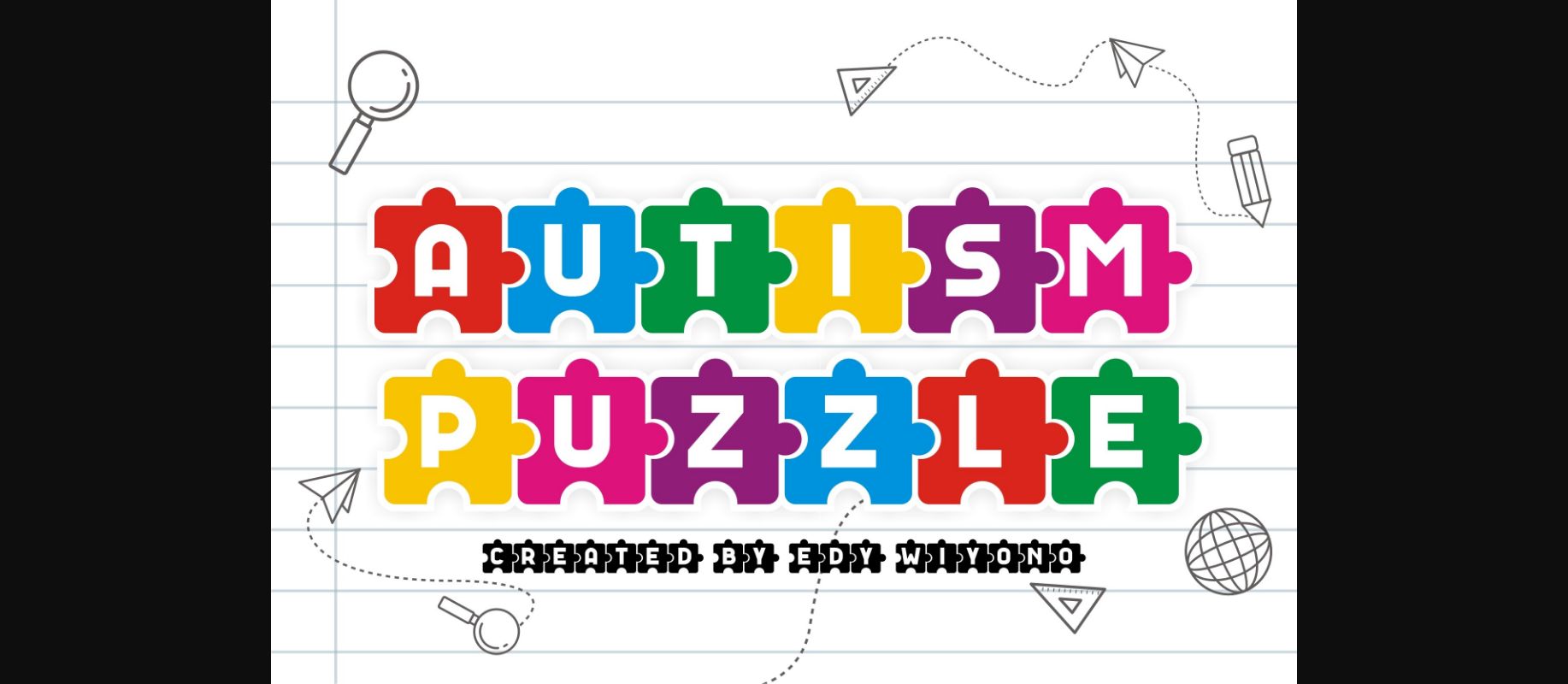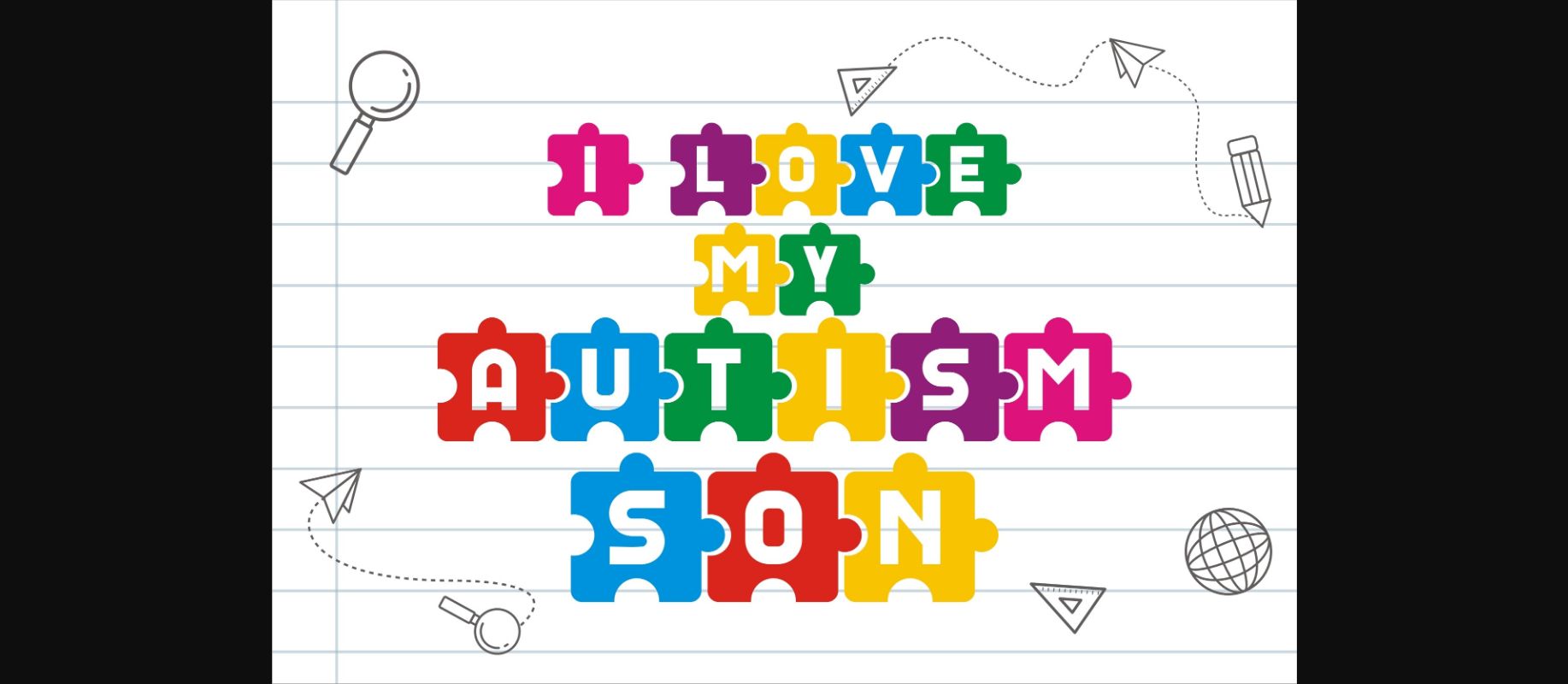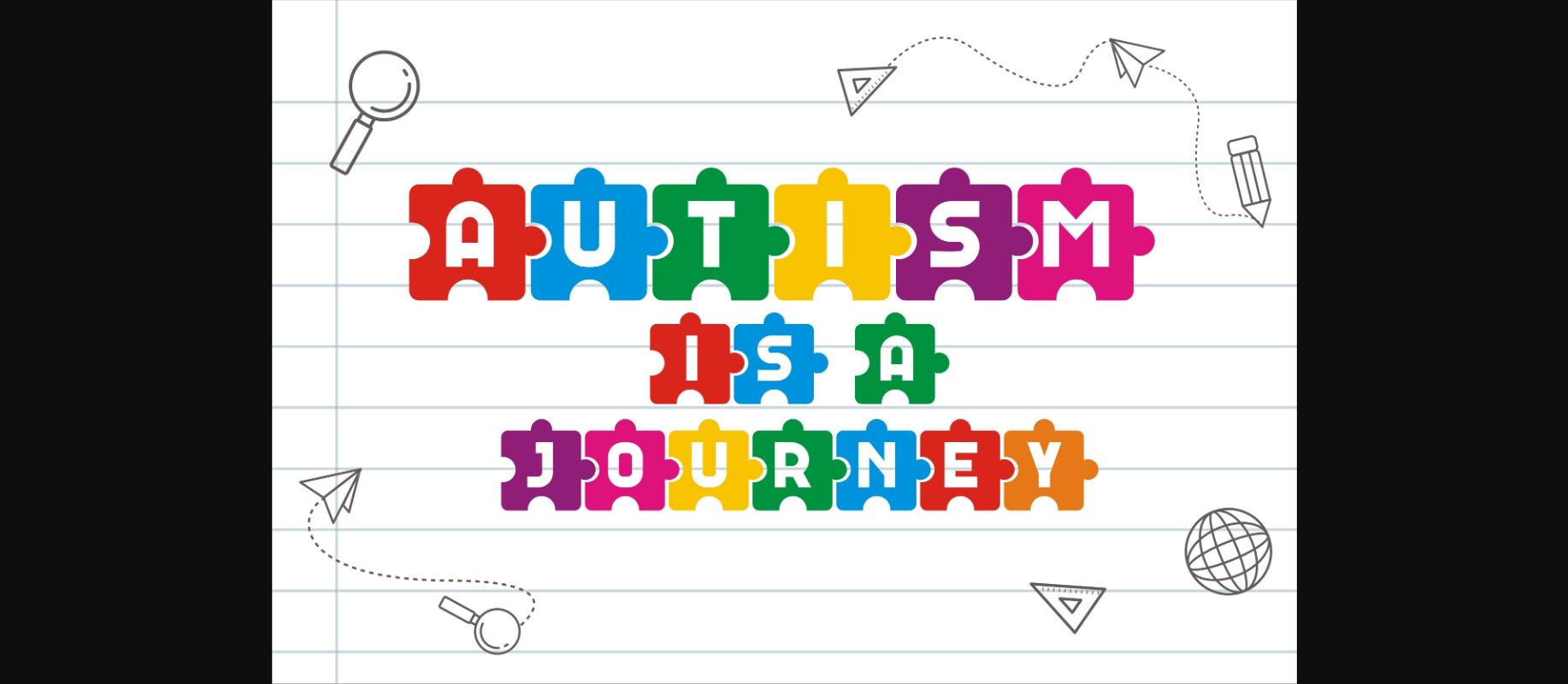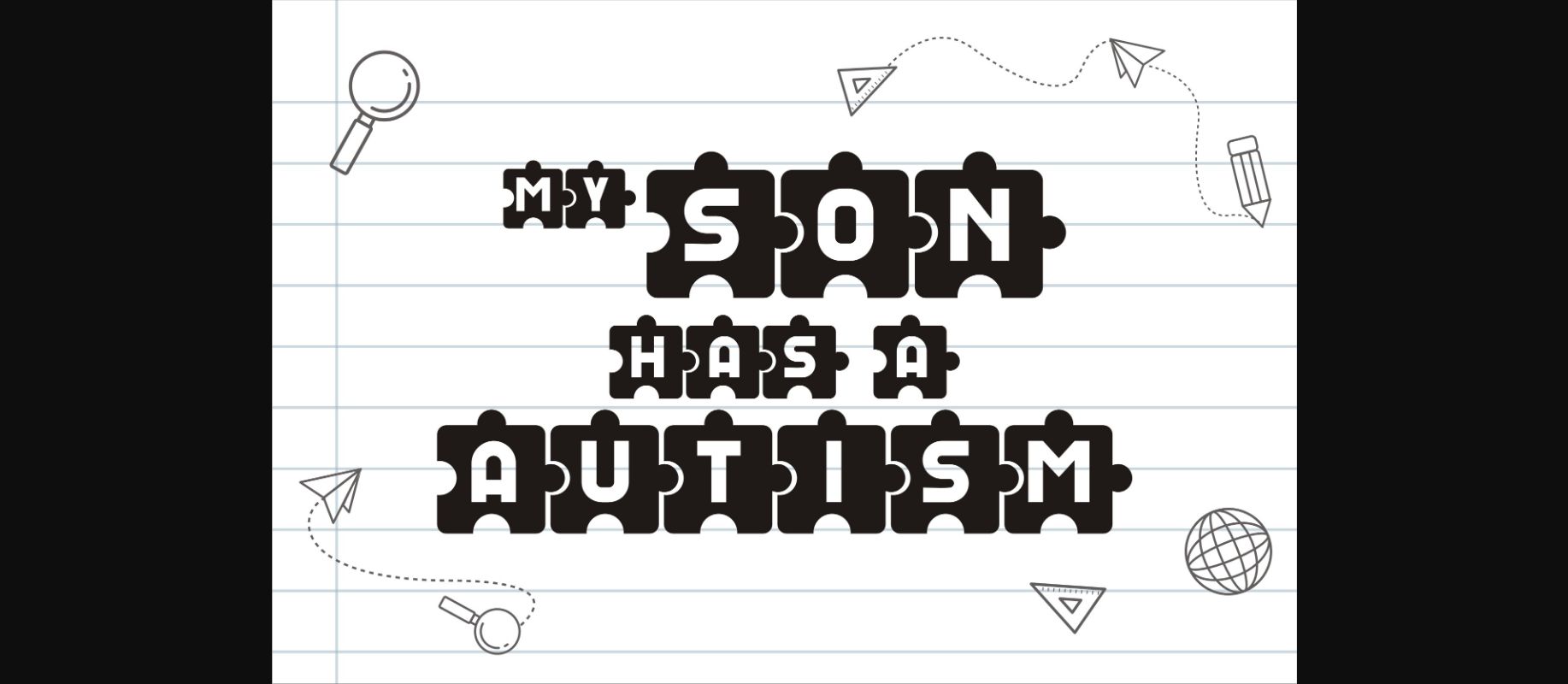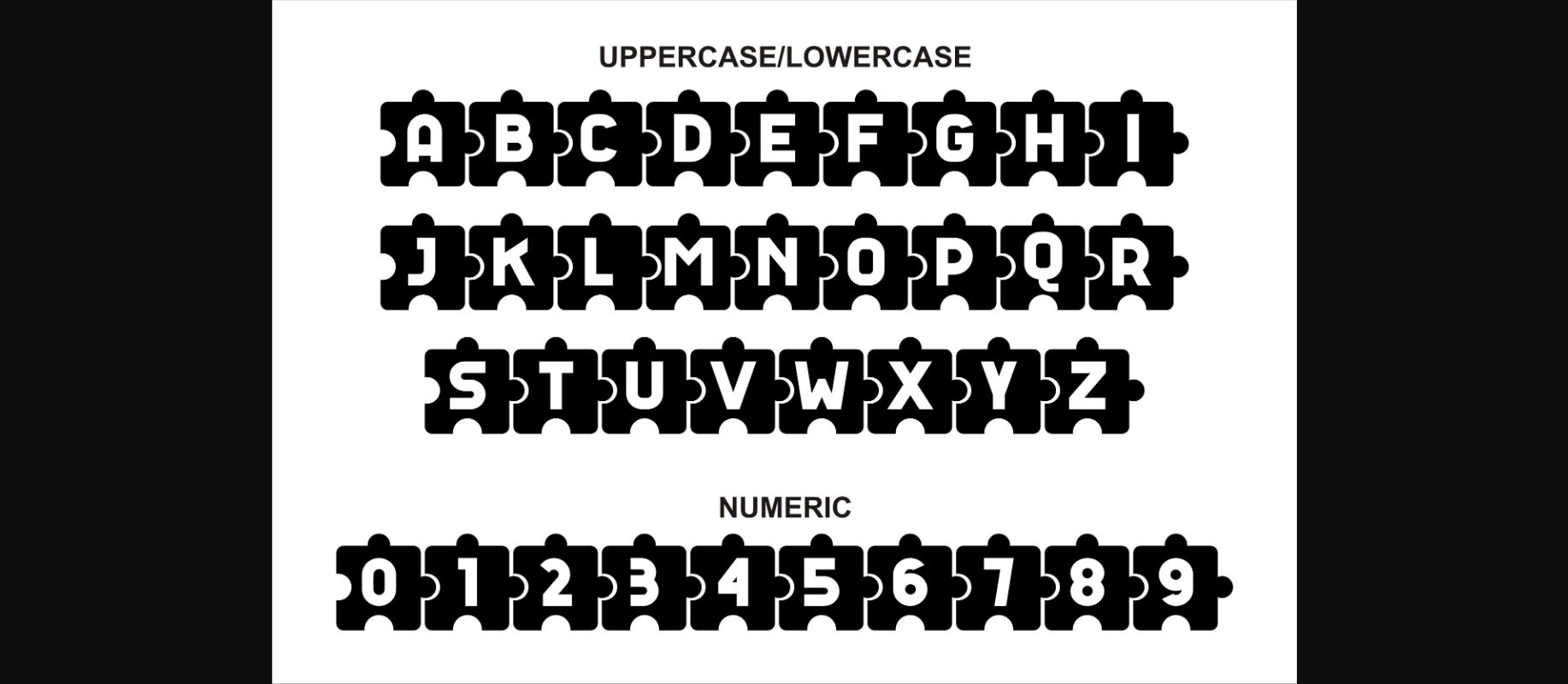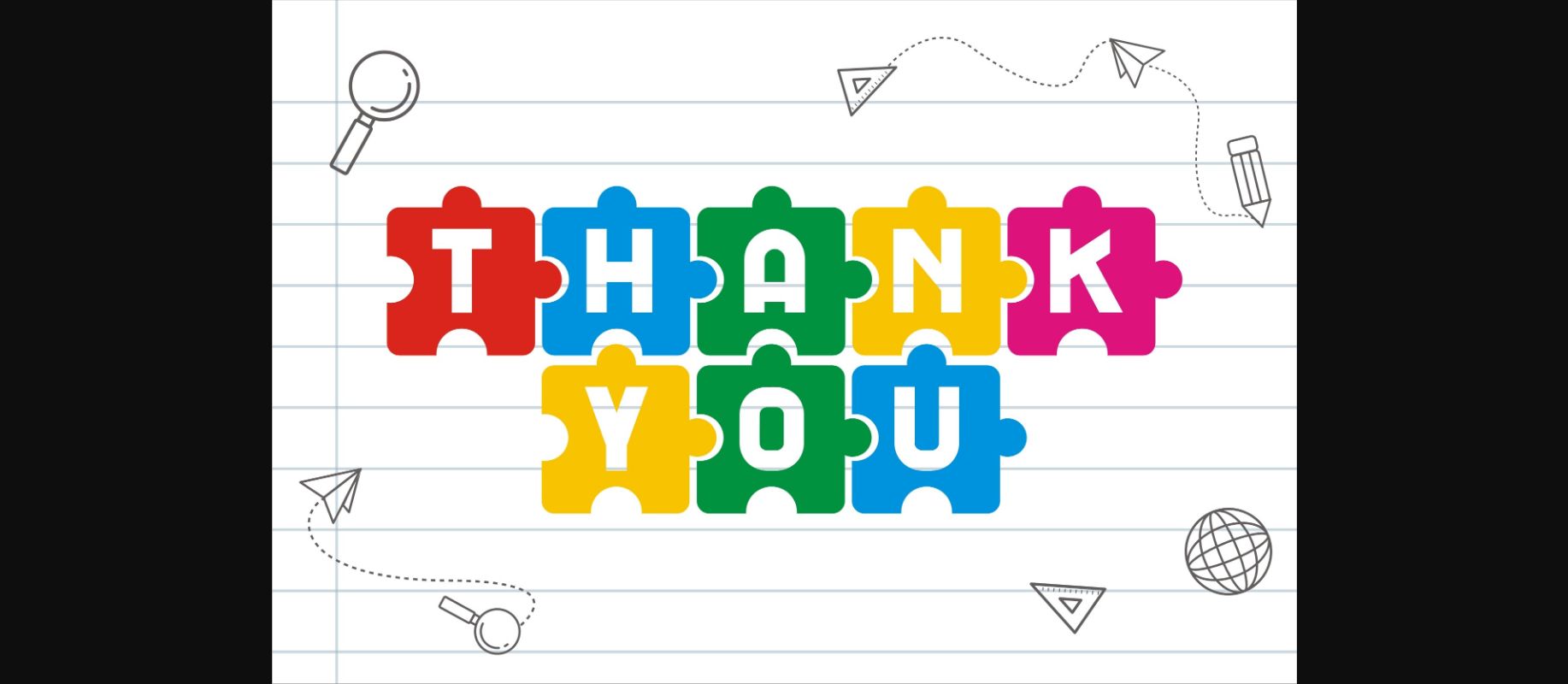
HomeDecorative FontsAutism Puzzle Font Decorative Fonts Autism Puzzle Font FacebookXPinterestWhatsApp 1 of 8 ... Autism Puzzle Font Poster 2... Autism Puzzle Font Poster 3... Autism Puzzle Font Poster 4... Autism Puzzle Font Poster 5... Autism Puzzle Font Poster 6... Autism Puzzle Font Poster 7... Autism Puzzle Font Poster 8... About Autism Puzzle Font Autism Puzzle is a font with decorative puzzles, very suitable for children’s themes. No matter the topic, this font will be an incredible asset to your fonts’ library, as it has the potential to elevate any creation. DOWNLOAD NOW People also explored Paper Sign Font Metadorc Font Talliya Font Branding Font Like Father Like Son Font Winter Gear Font Cattle Annie Farmer Market Font Lintingdaon Script Font 558 0 TagsAutism Puzzle Font Previous articleJoskel Ngabiporn Brush FontNext articleMonogram Circle Botanic Font LEAVE A REPLY Cancel reply Comment: Please enter your comment! Name:* Please enter your name here Email:* You have entered an incorrect email address! Please enter your email address here Website: Save my name, email, and website in this browser for the next time I comment. Personal Use Free Karmatic Arcade Personal Use Free Read more about this font Daisy Script Personal Use Free Read more about this font Breakaway Personal Use Free Read more about this font Hello Sister Personal Use Free Read more about this font BLOG Fonts That Capture the Spirit of New York City New York City is more than just a place—it’s an experience, a rhythm, a visual language... 5 Fonts That Will Dominate Design Trends in 2026 How to Install and Use Fonts on Windows, macOS, and Web Projects Top 7 Google Fonts Alternatives for Faster and Privacy-Friendly Web Design (2025)